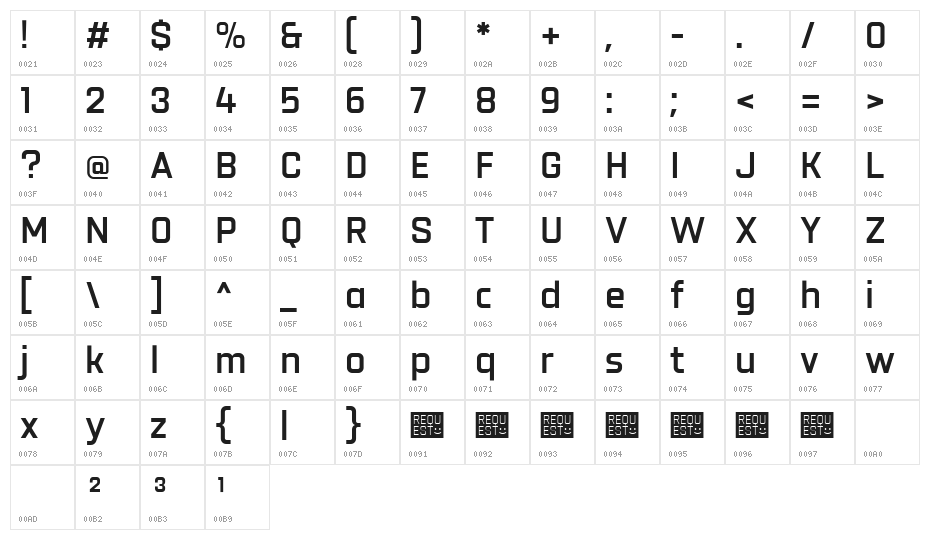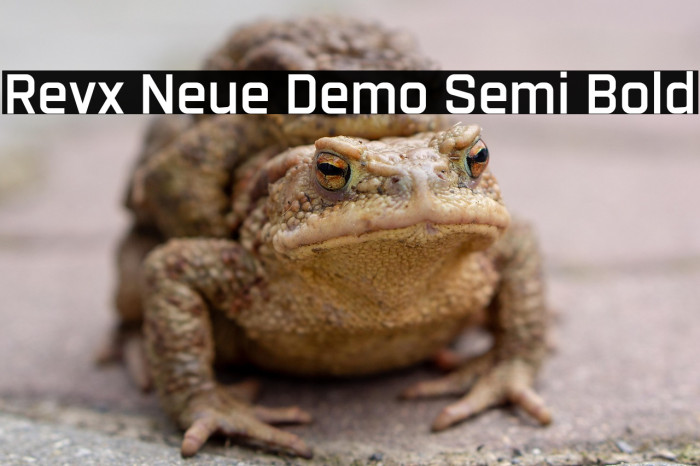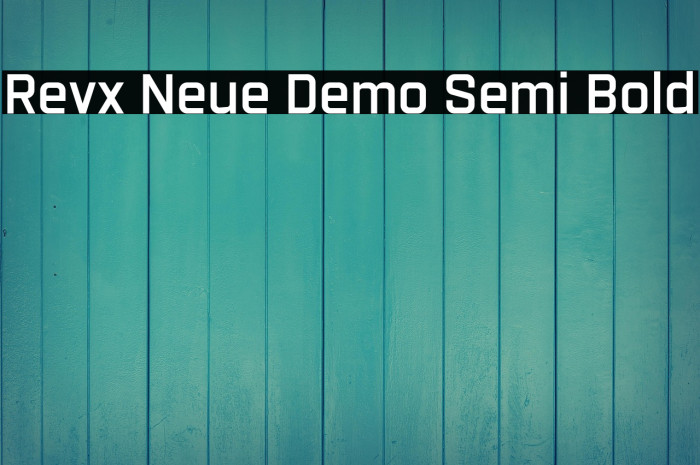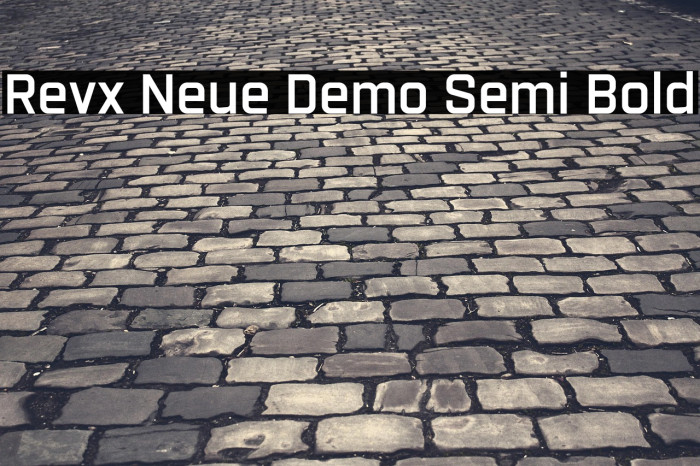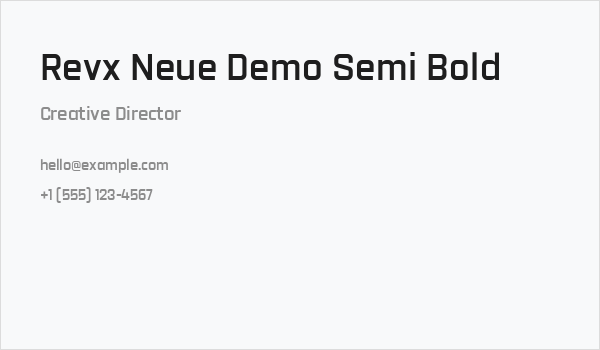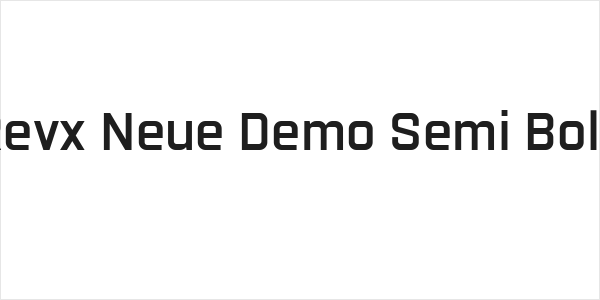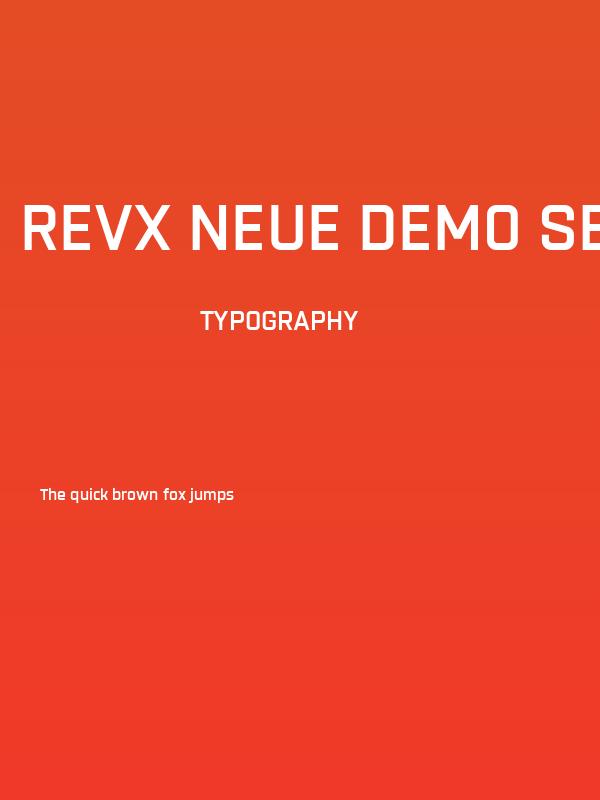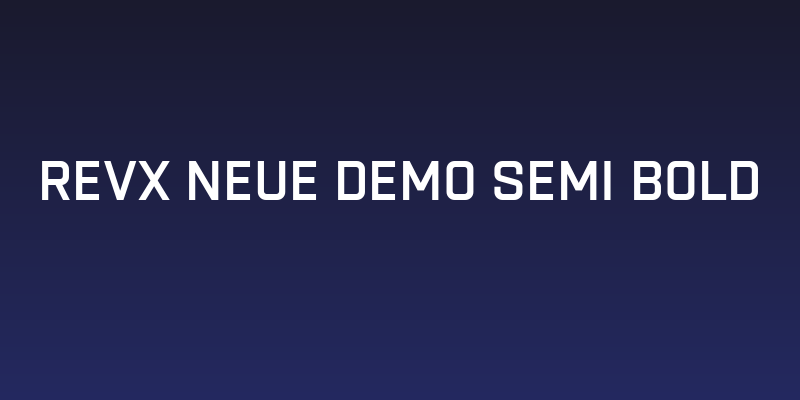
Revx Neue Demo Semi Bold Font
Revx Neue Demo Semi Bold Description
This typeface exhibits a modern and clean design, characterized by its geometric shapes and uniform stroke widths. The uppercase letters are bold and assertive, with a slightly condensed appearance that enhances readability. The lowercase letters maintain a consistent height, contributing to a balanced and harmonious look. Numbers are clear and distinct, making them suitable for both digital and print media. Special characters are well-defined, ensuring versatility across various applications. The overall design is sleek and contemporary, making it ideal for projects that require a professional and polished aesthetic.
| Use Case | Headlines, Logos, Digital Interfaces |
| Proposed Projects | Ideal for branding, digital interfaces, advertising, and editorial design. |